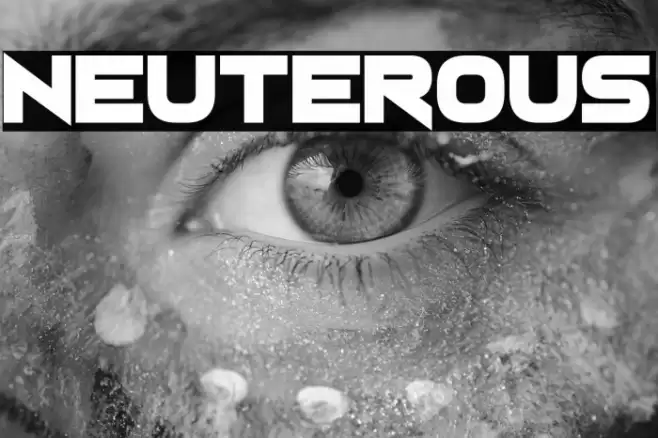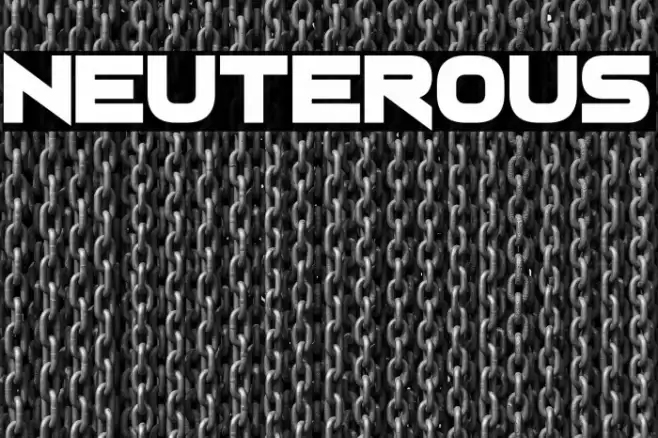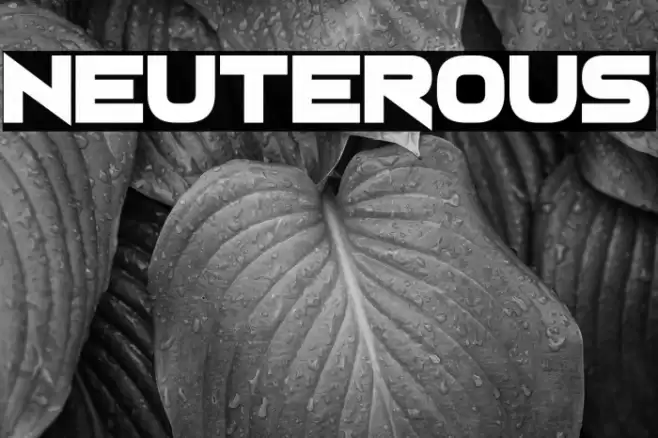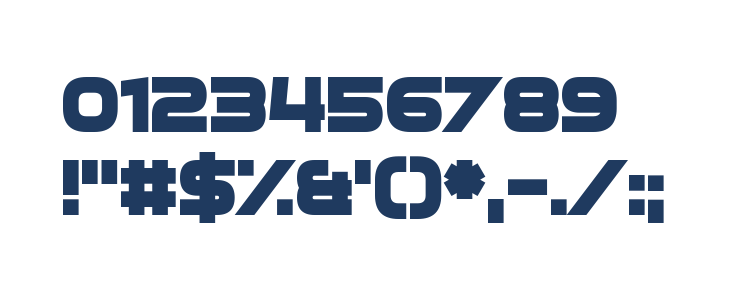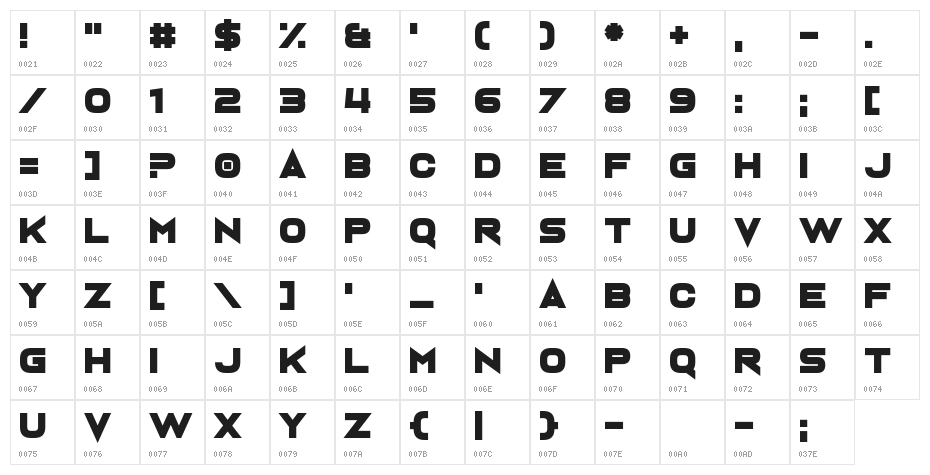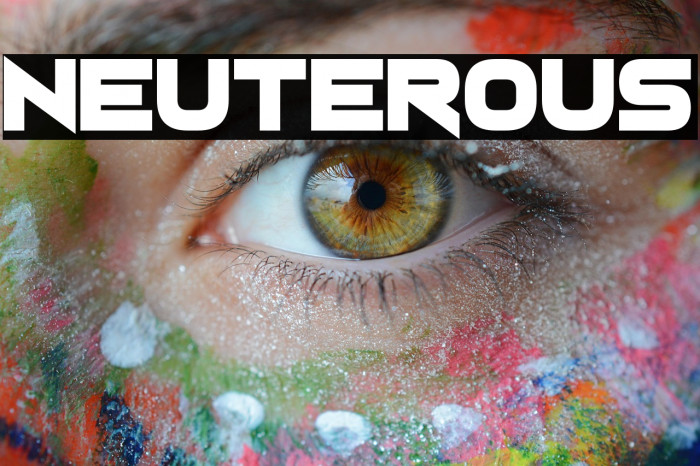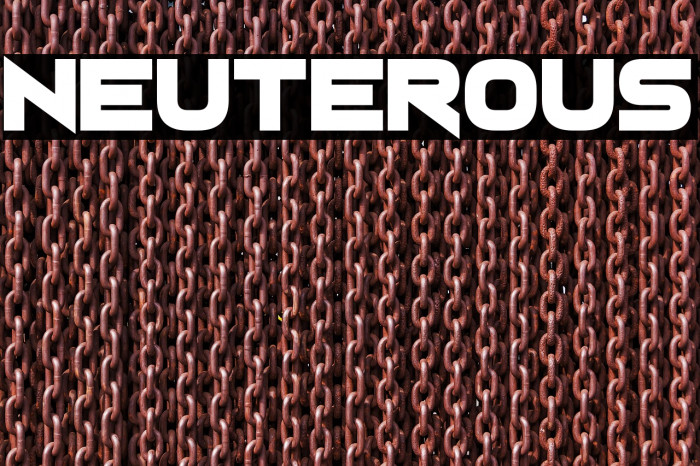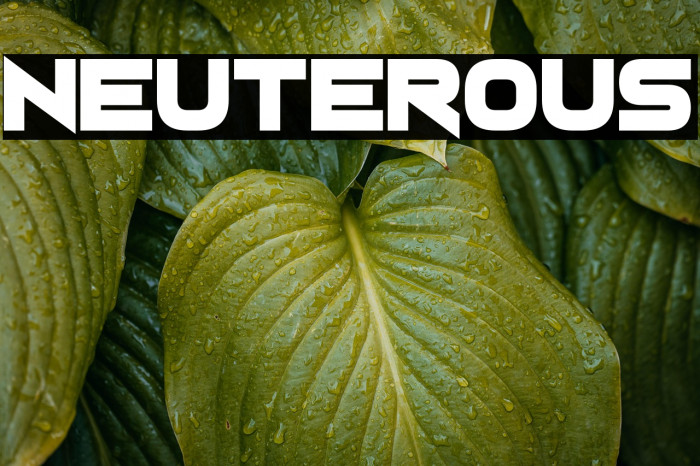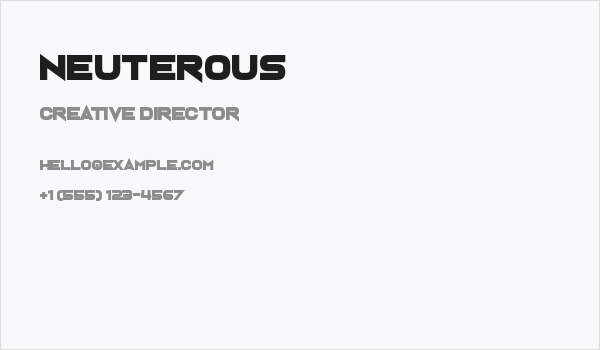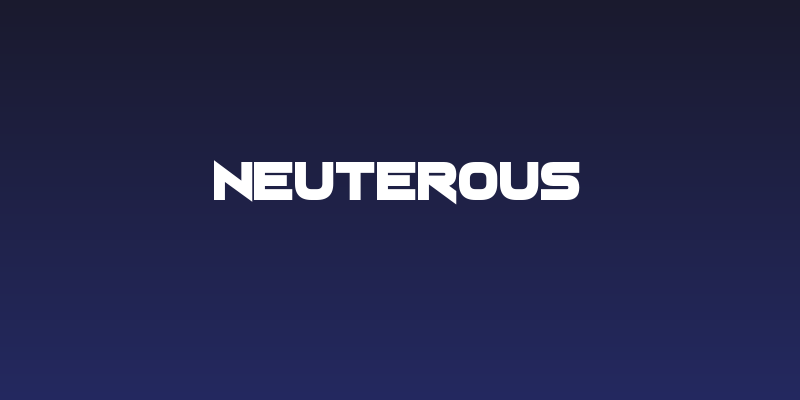
Neuterous Font
Neuterous Description
This font features a bold, geometric design with a modern and futuristic aesthetic. The characters are constructed with sharp angles and clean lines, creating a striking and impactful appearance. The uppercase letters are particularly distinctive, with a uniform height and width that contribute to a cohesive look. The numerals and special characters maintain the same bold style, ensuring consistency across all text elements. This font is highly legible and makes a strong visual statement, ideal for projects that require a contemporary and assertive typeface.
A bold, geometric font with a modern, futuristic style from Uncategorized fonts.
- Proposed Projects: Ideal for branding, headlines, posters, and digital media that require a strong visual impact.